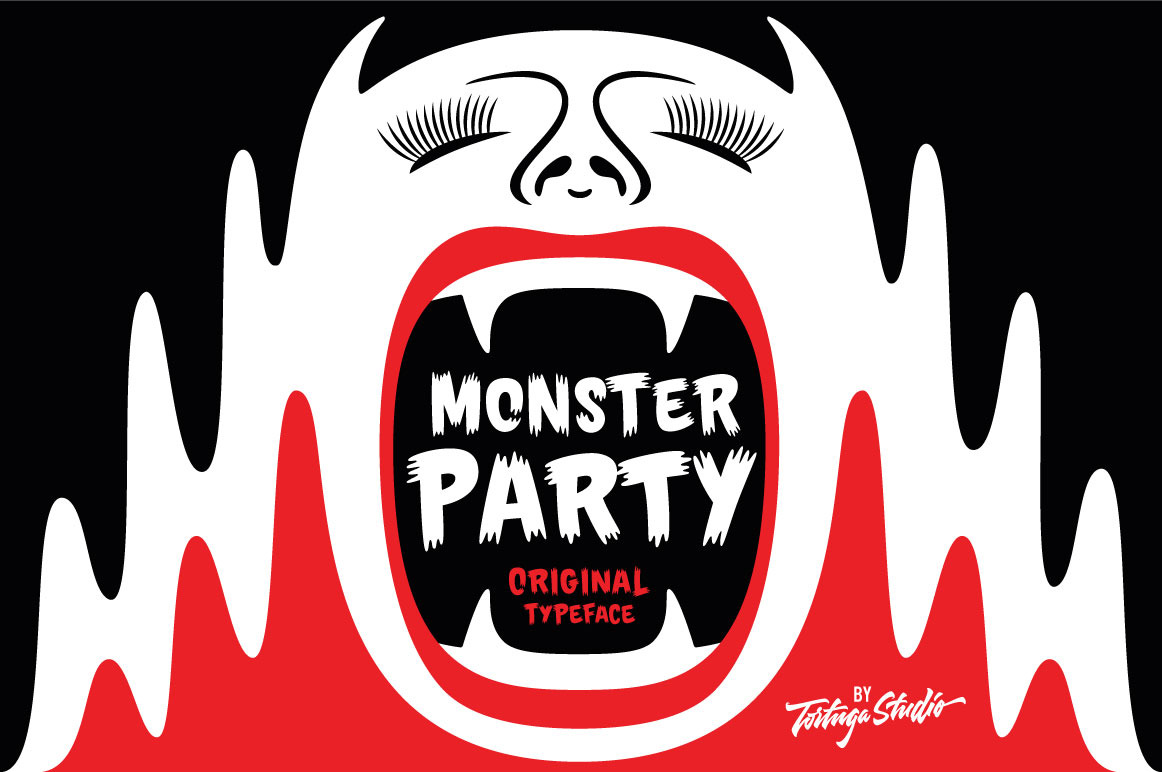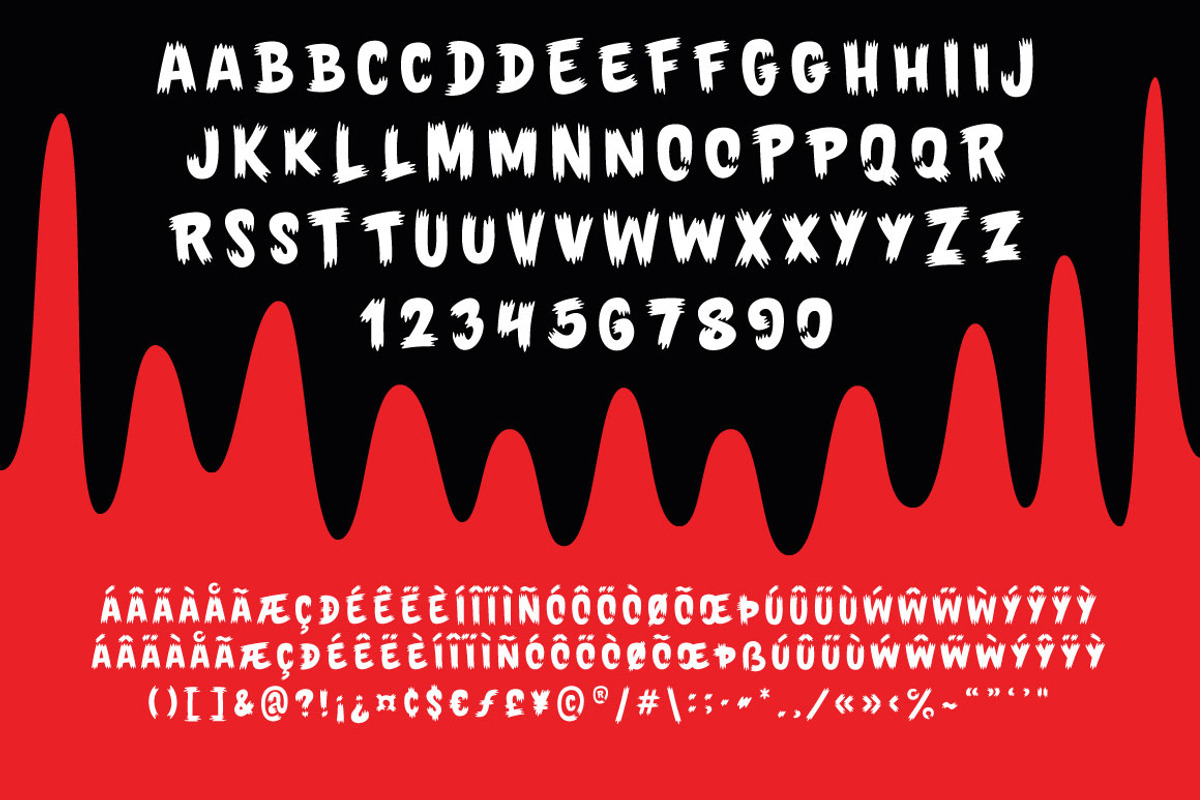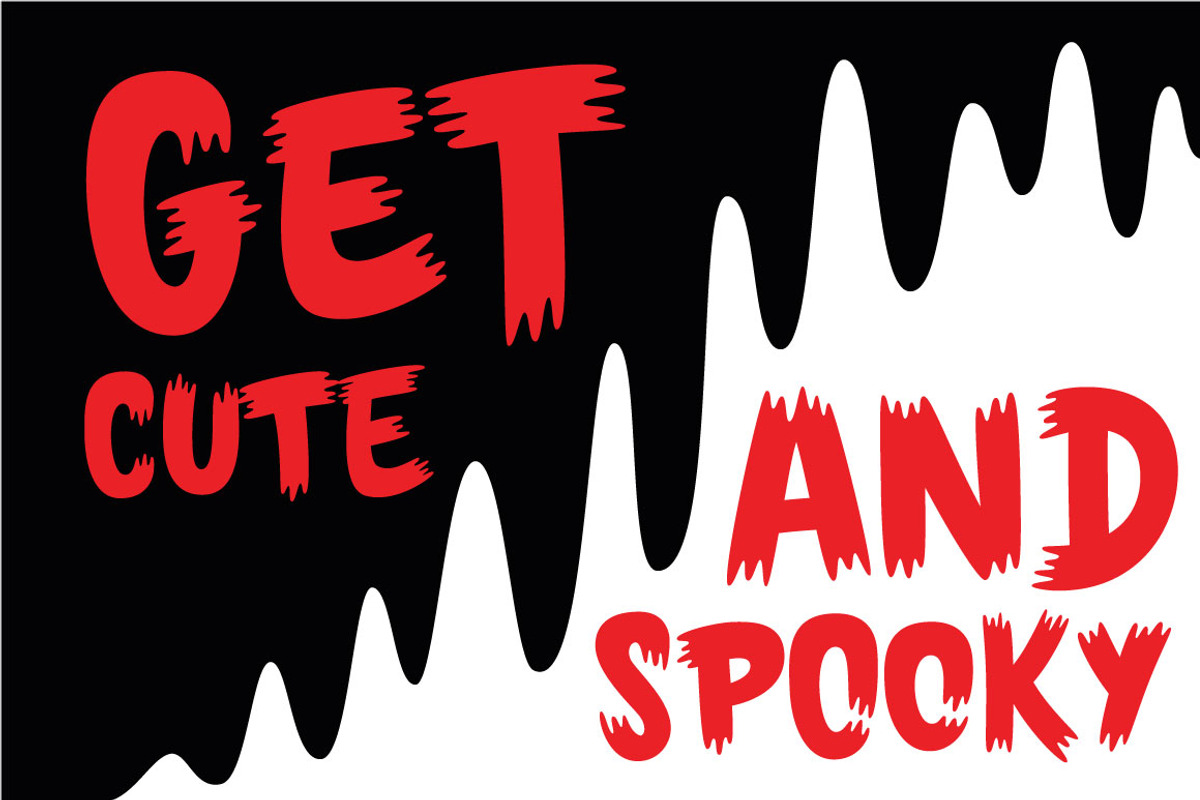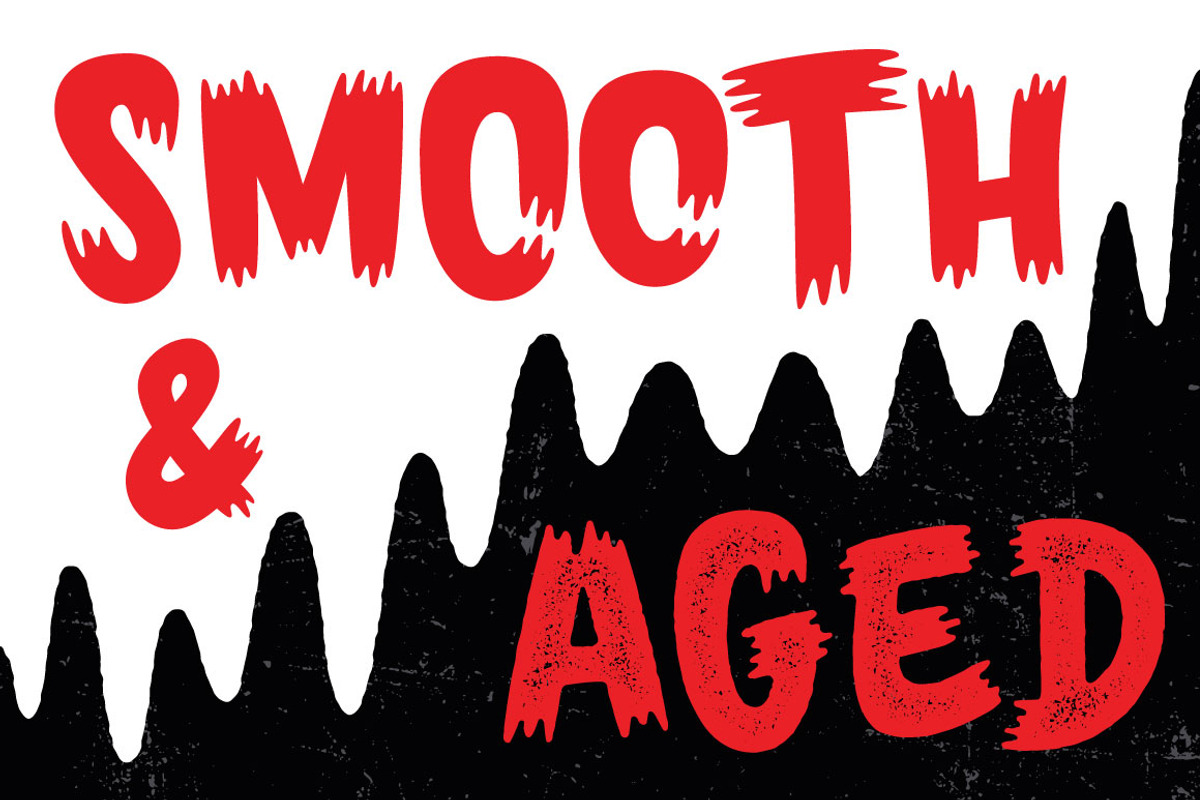
Monster Party Font
Introducing Monster Party! A brushy and playful typeface inspired by monsters, retro comic book lettering and movie posters. This scratchy letters look like it came straight from the paw of a quite cute monster. Monster Party is perfect for Logos, Signage, Packaging T-shirts and Apparel, Mugs and Tots, Textile, Greeting cards, Invitations, Captions, Headers, Titles, Ads, Posters, Prints, Book Jackets, Quotes, Storefronts and much more!
Have fun at Monster Party!